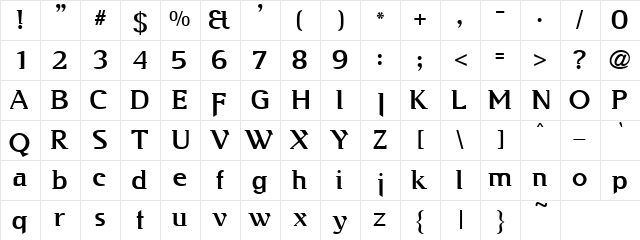
Kabos Gyula Regular
Design Context for Kabos Gyula Typeface
Kabos Gyula takes a measured approach to typography — its balanced proportions and neutral character make it a reliable workhorse for both digital and print work.